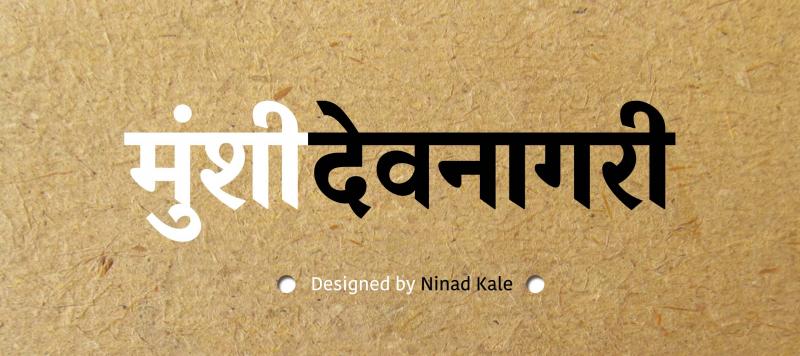
Munshi Devanagari was developed as a typeface for immersive reading, The contrast between the lighter and the bolder weights is dramatic: members of the family may be mixed and matched to good effect in editorial design. Munshi Devanagari’s letterforms are classically proportioned. Like other traditional Devanagari text faces, they feature a diagonal contrast axis, higher-than-average stroke contrast, and large counters forms – the later make this typeface’s base characters highly recognisable and readable.
Family Name Munshi Devanagari
Designer(s) Ninad Kale
Release Date June 1, 2015
Available Style Light, Regular, Medium, Semibold, Bold
Classification Serif